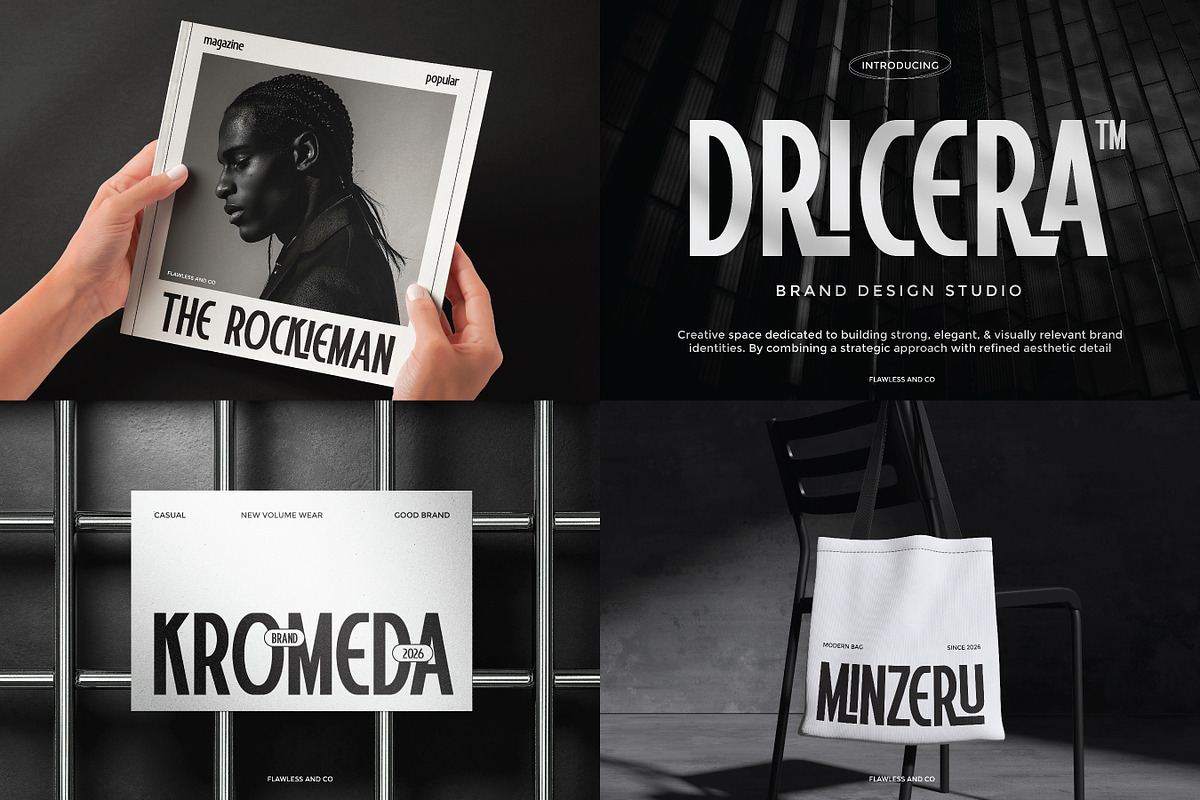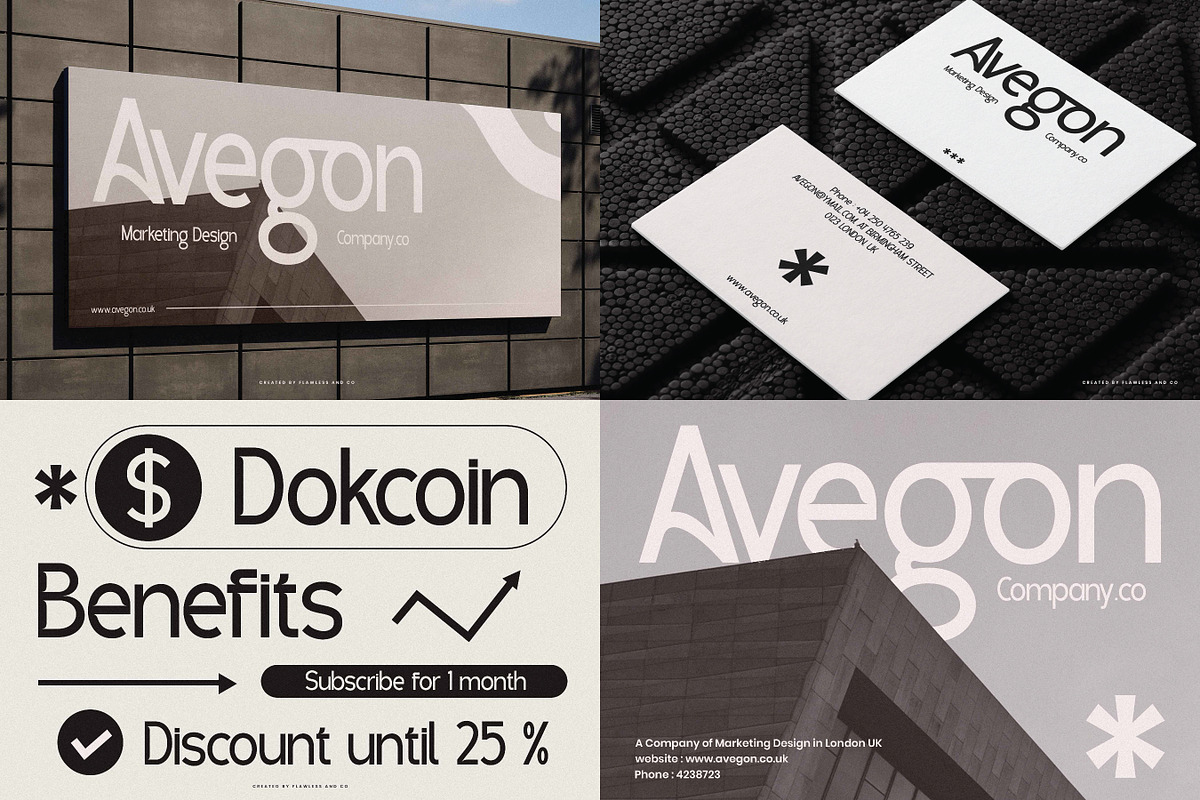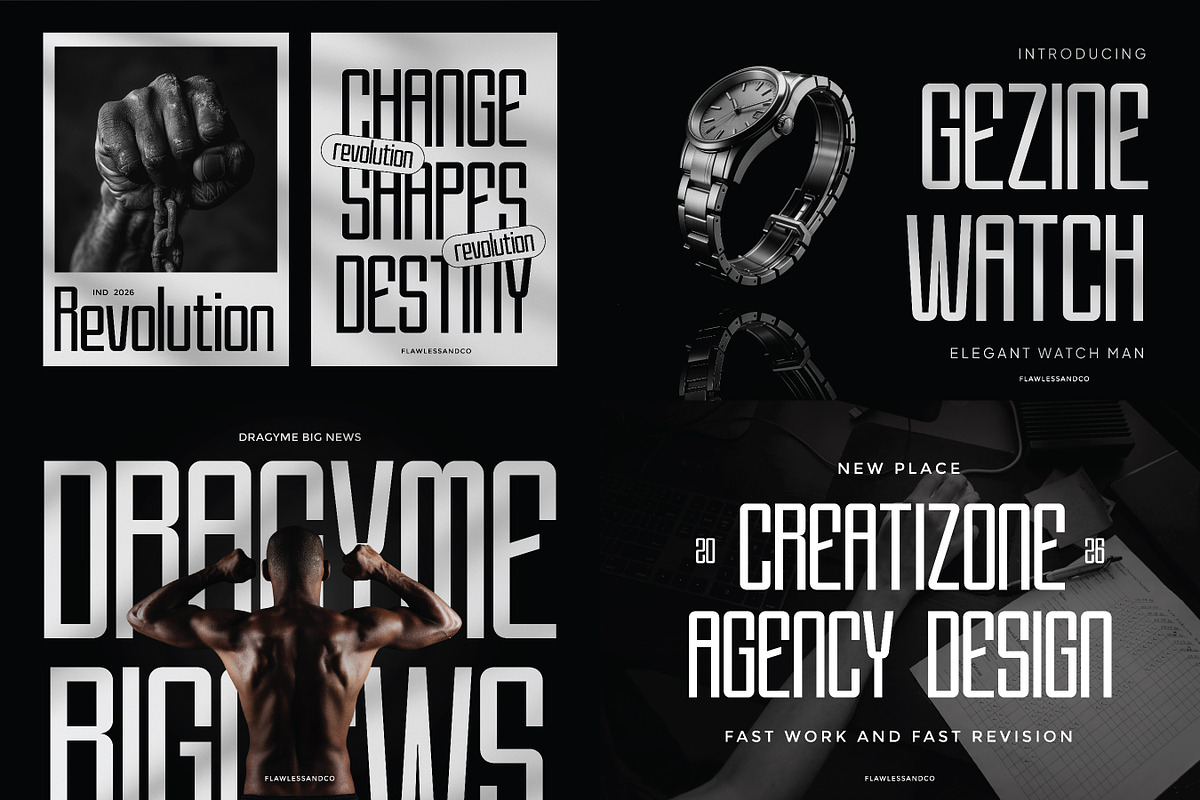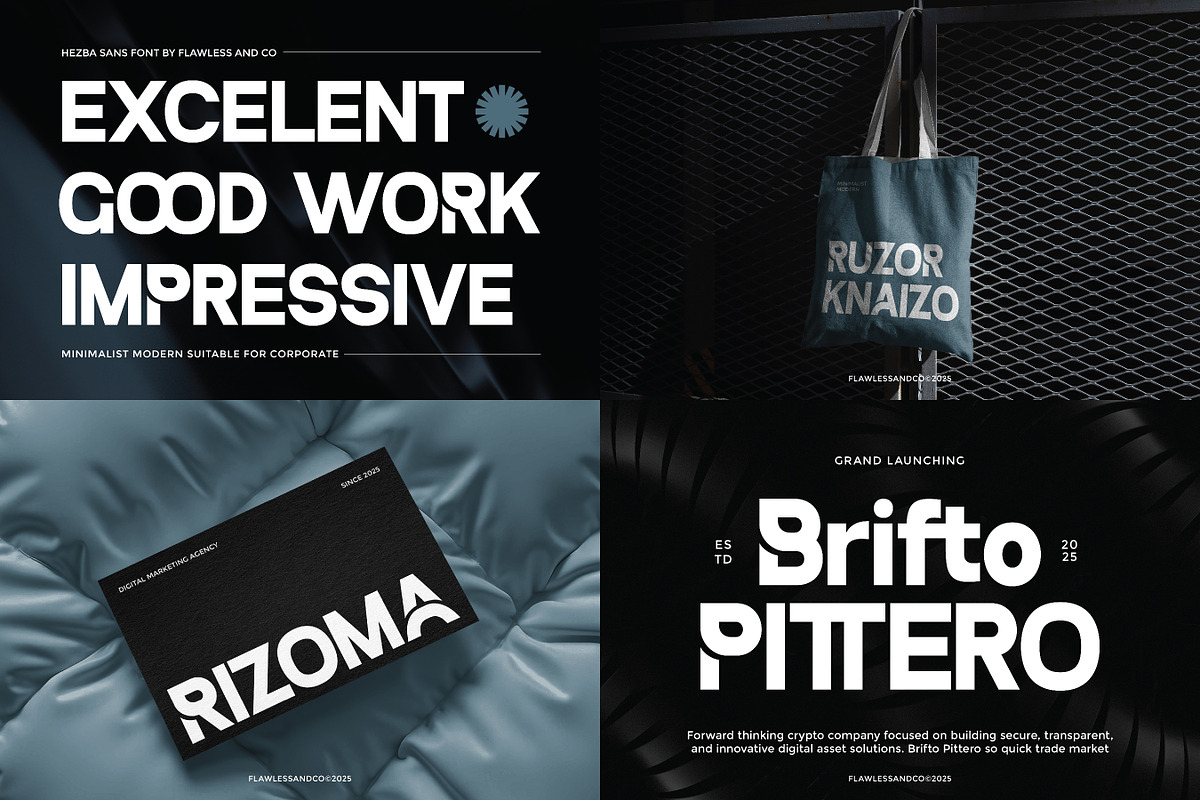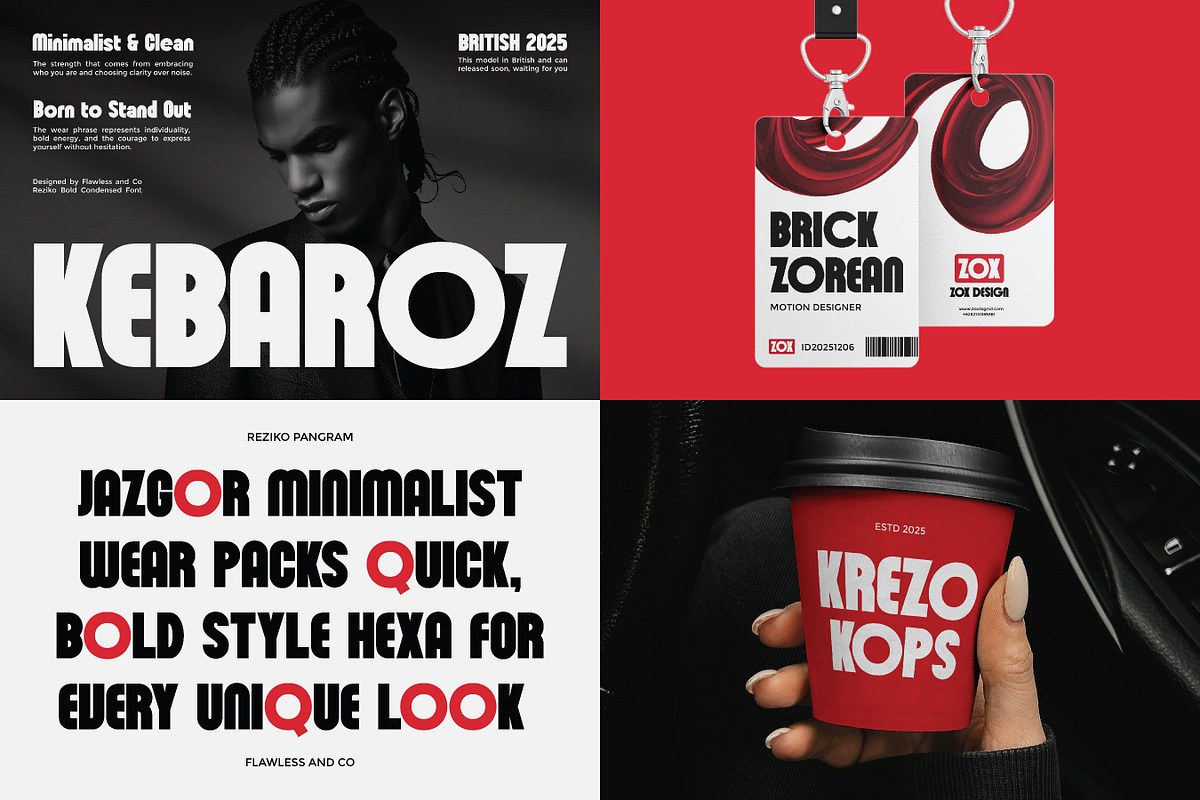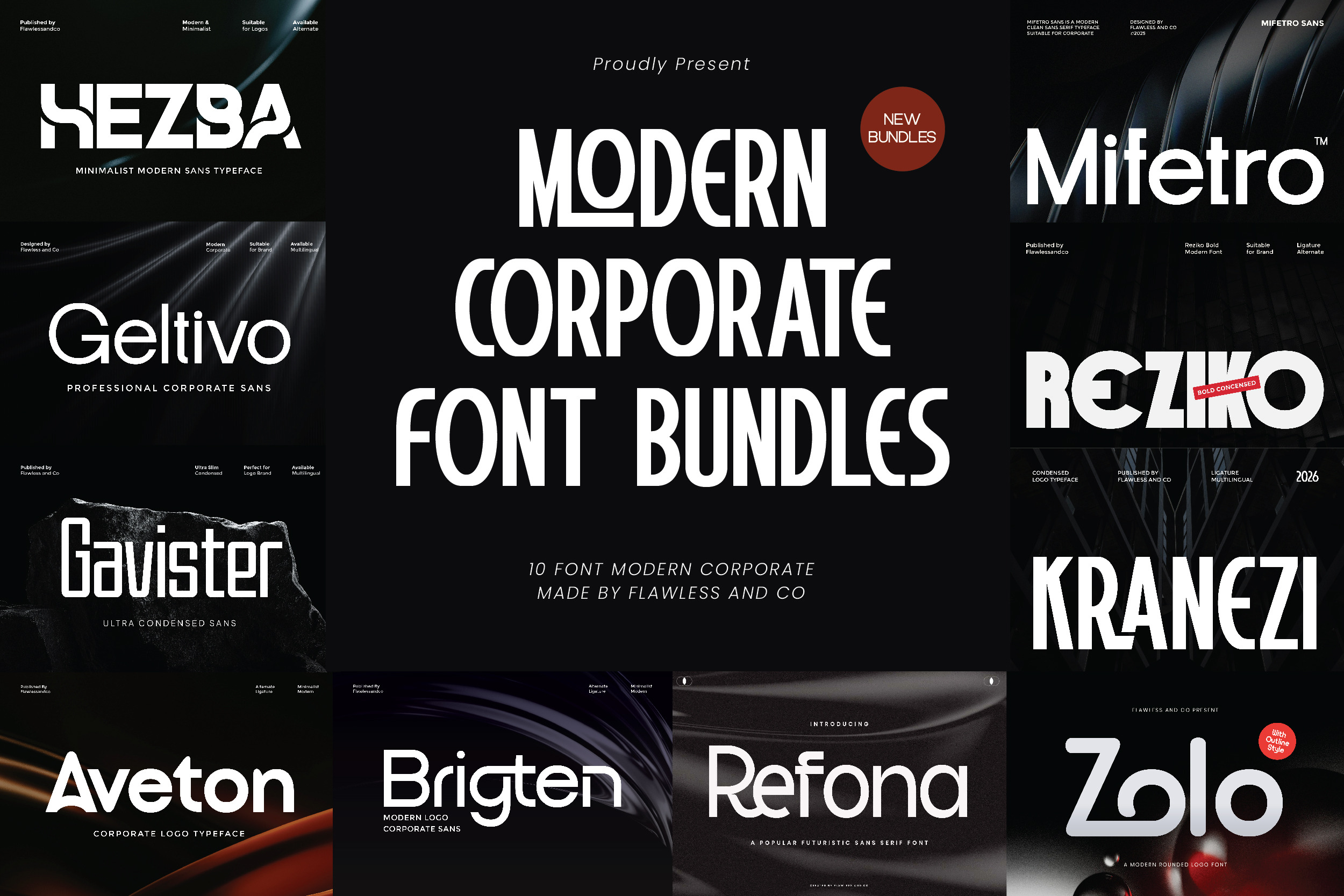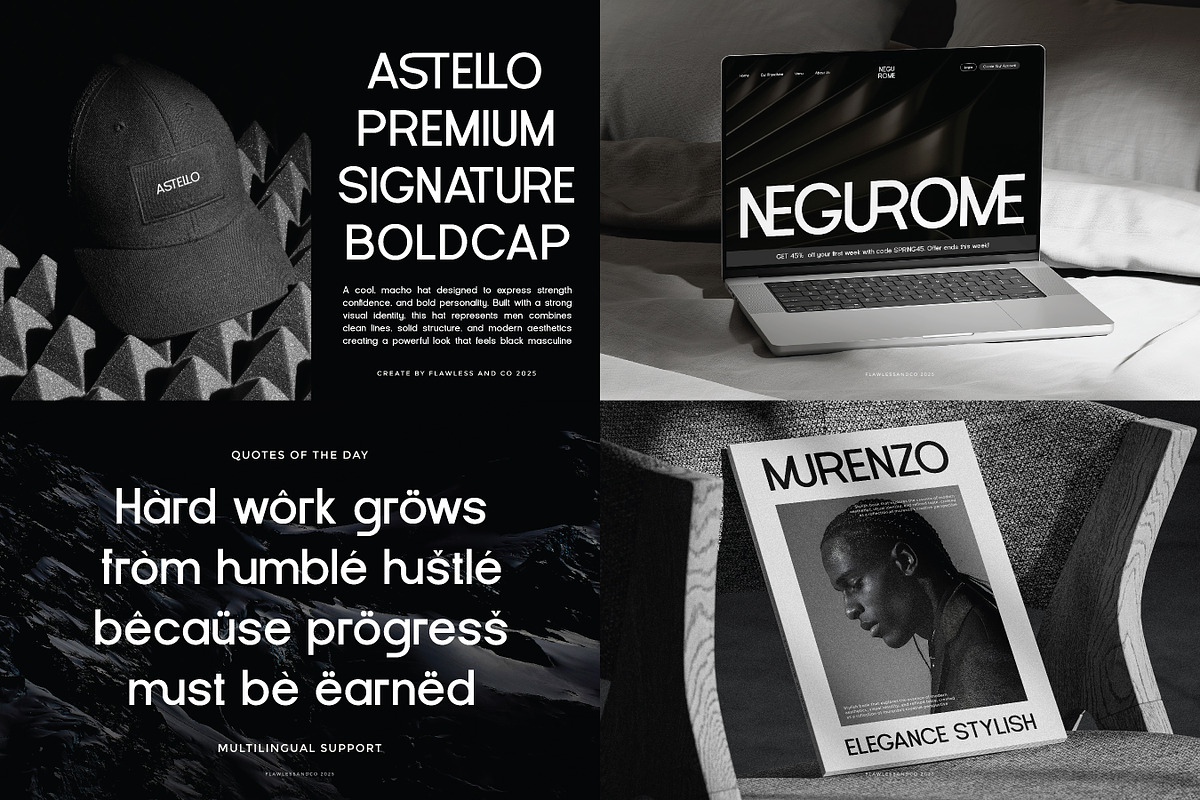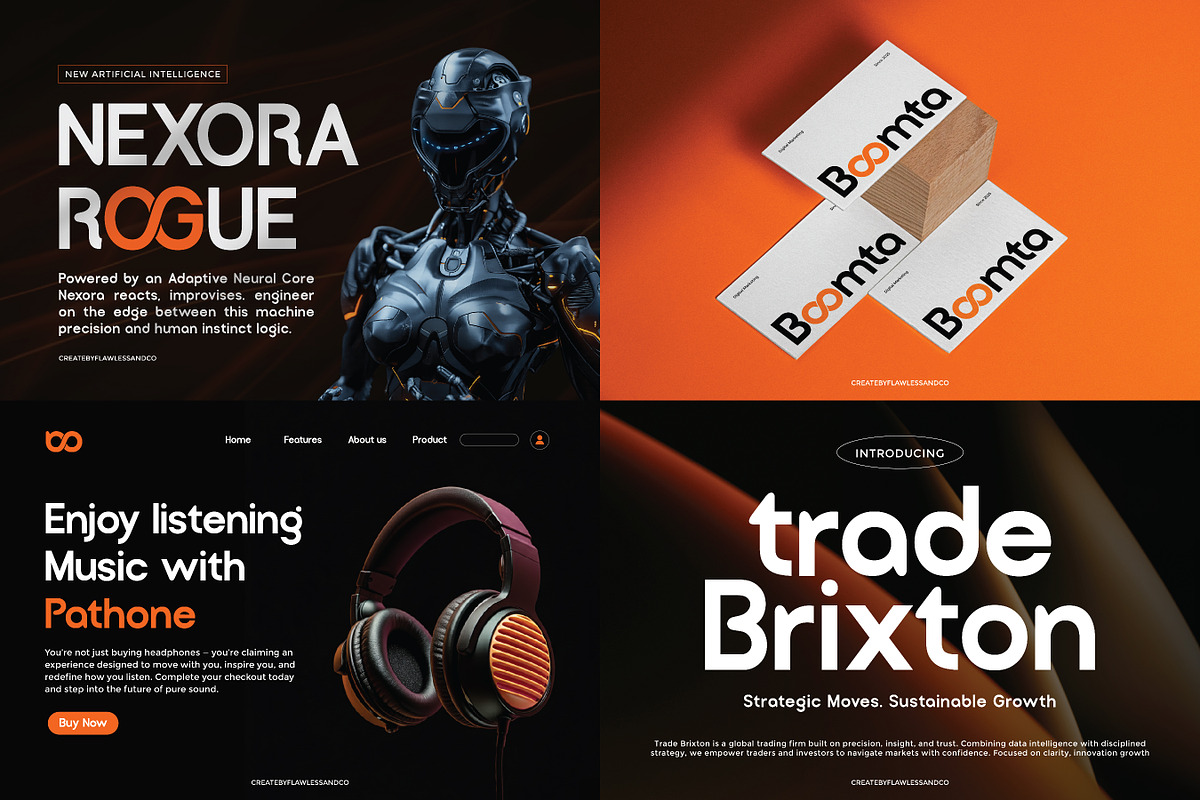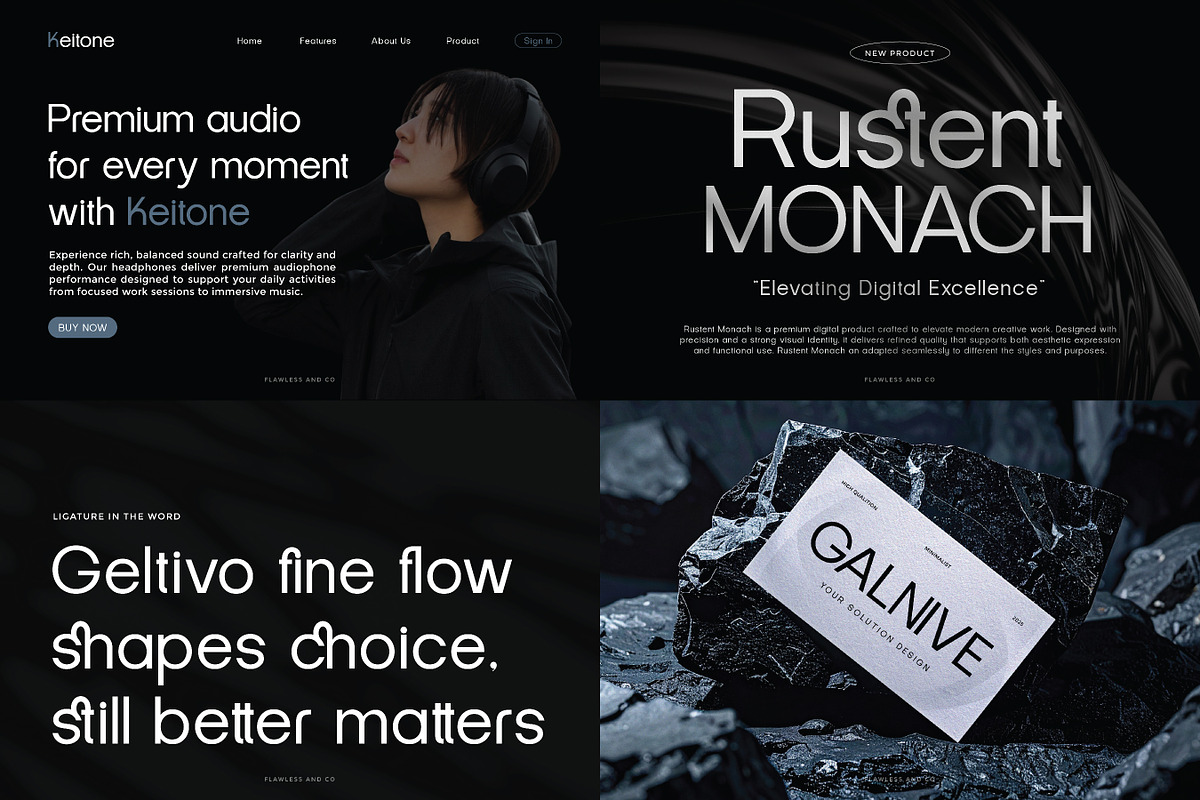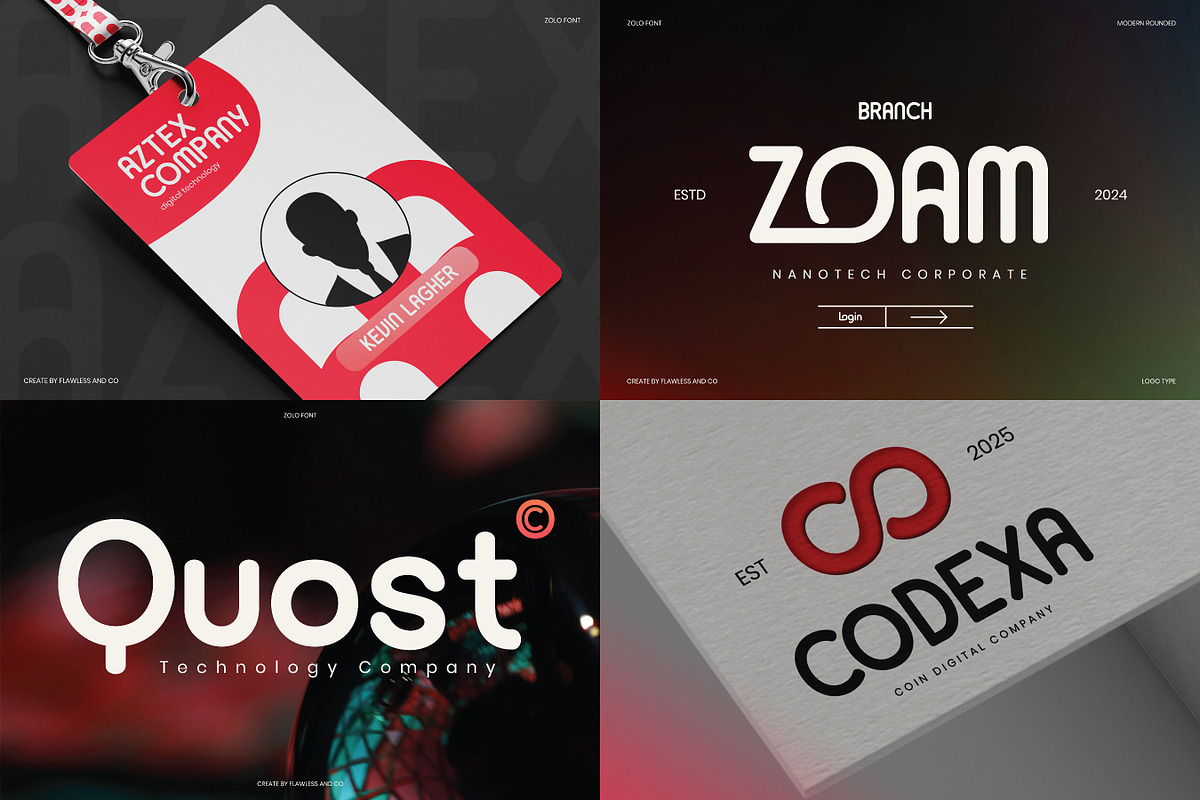
Modern Corporate Font Bundle
Introducing the Modern Corporate Bundle a clean and professional collection of fonts designed to deliver clarity, structure, and a strong corporate identity across your creative projects. Each font in this bundle features modern letterforms, balanced proportions, and a sleek visual style that reflects professionalism and trust.
These fonts combine contemporary design with a corporate-focused aesthetic, making them ideal for projects that require a polished, minimal, and business-oriented look. Whether you're working on branding, presentations, corporate materials, or digital platforms, this bundle provides versatile fonts that communicate confidence and consistency.
This bundle includes 10 high-quality modern corporate fonts carefully crafted for professional and business use. They are suitable for a wide range of design purposes such as brand identity, logos, business presentations, reports, websites, marketing materials, social media, stationery, and more.
- Corporate branding and logo design
- Business presentations and reports
- Marketing materials and advertisements
- Website and UI design
- Startup and tech branding
- Social media graphics
- Stationery and business cards
- Professional documents and layouts
- Clean and modern display typography